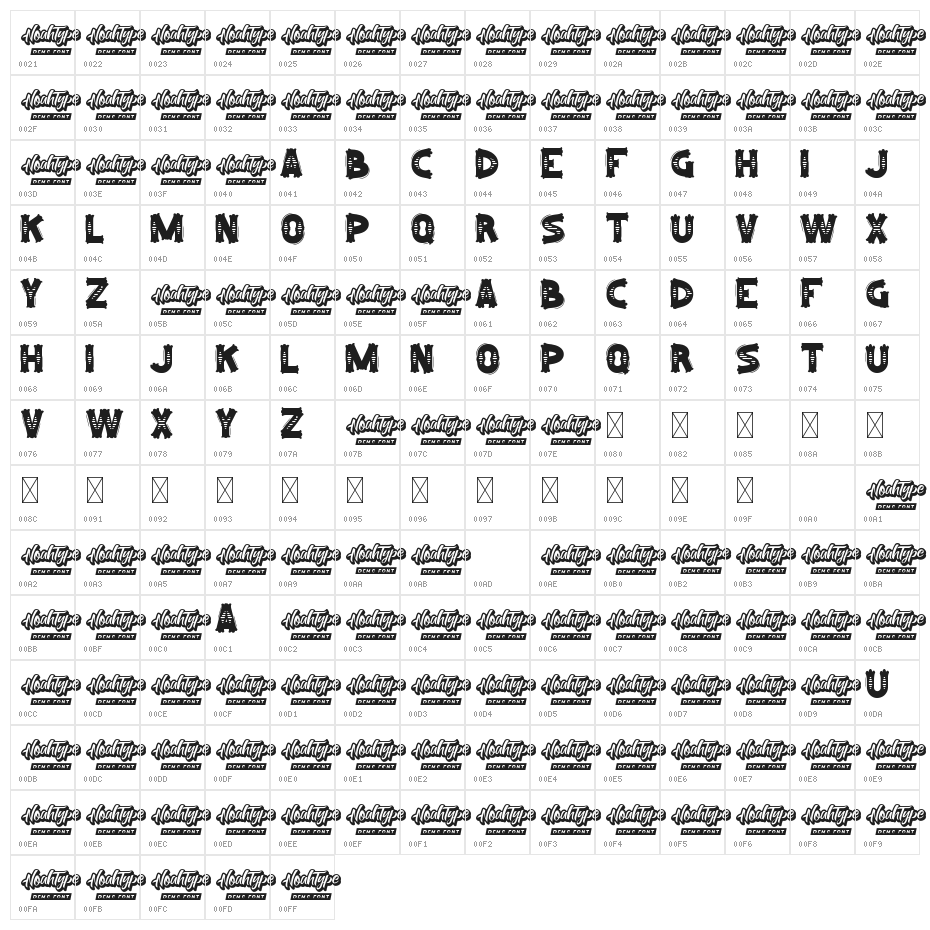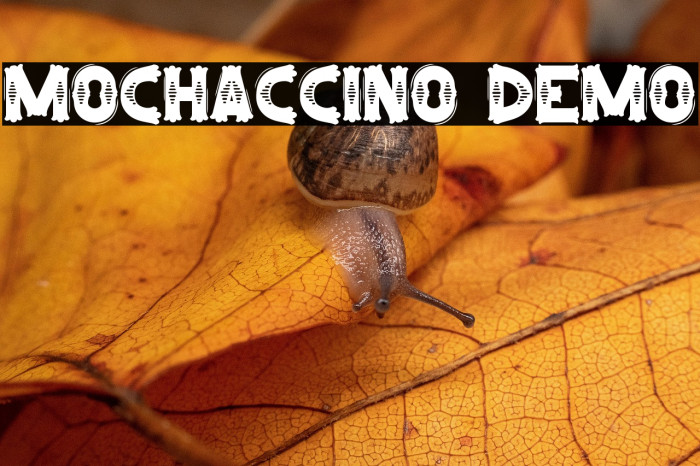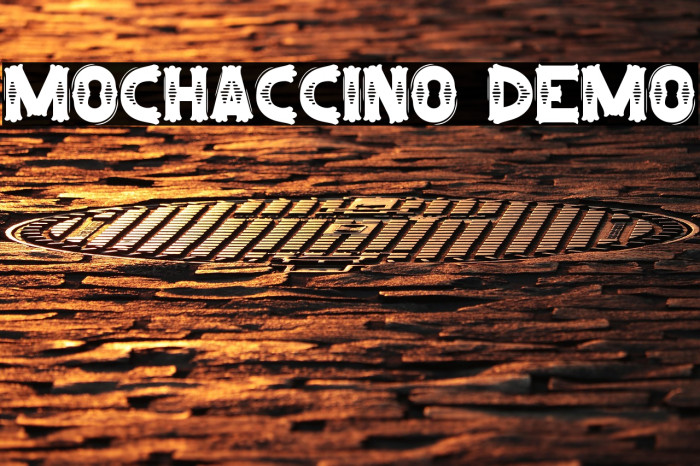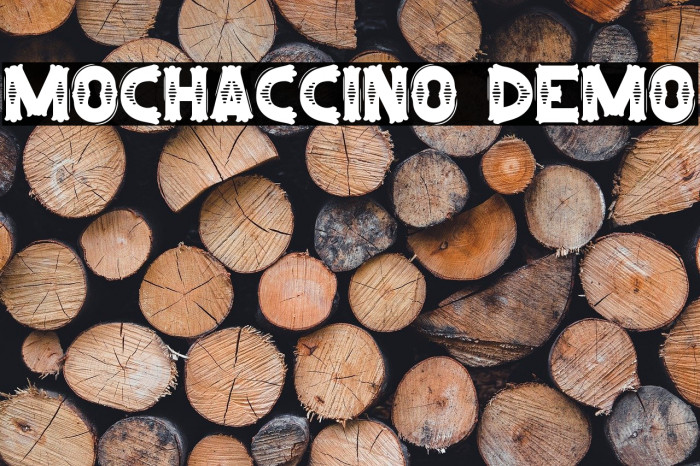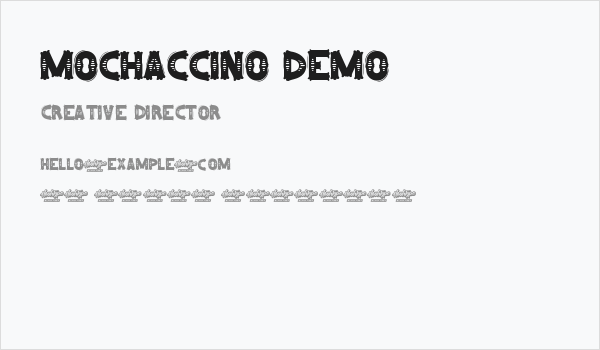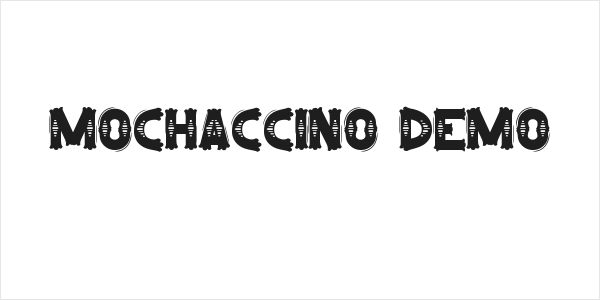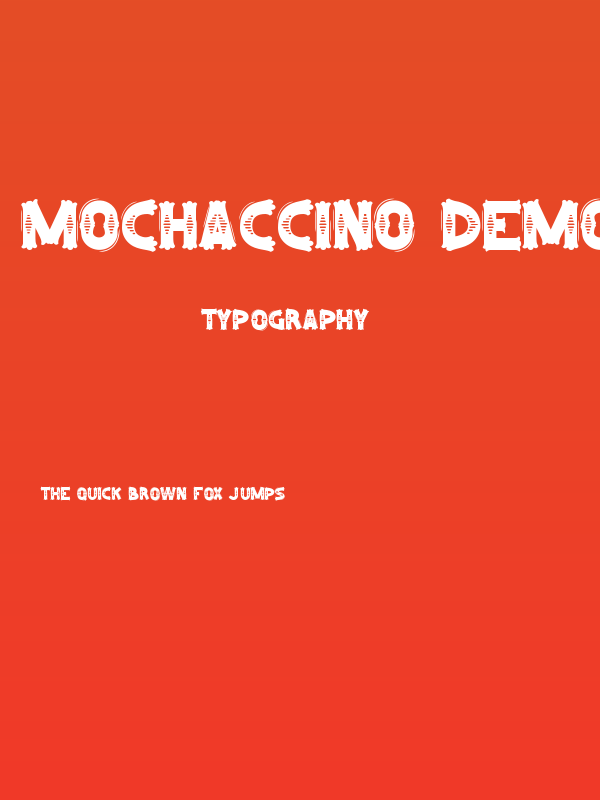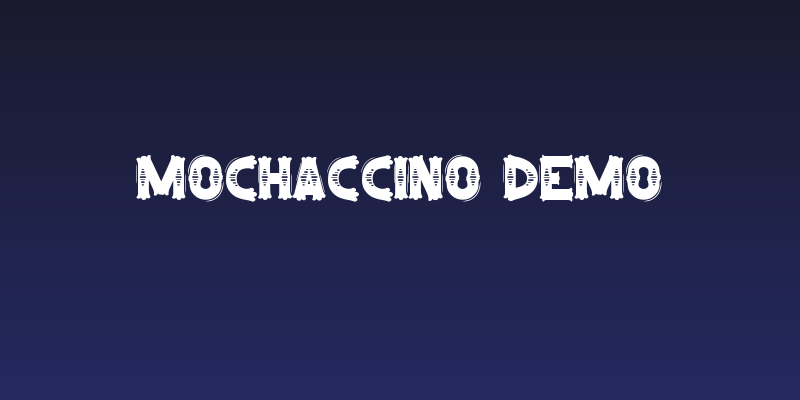
Mochaccino Demo Font
Mochaccino Demo Description
This font features a bold and playful design with a unique, decorative style. The characters are heavily stylized with thick strokes and intricate detailing, giving them a dynamic and energetic appearance. The font's boldness is accentuated by its high contrast between thick and thin lines, creating a striking visual impact. Each letter is crafted with a sense of movement and flair, making it ideal for eye-catching designs. The overall style is modern with a touch of whimsy, perfect for projects that require a fun and engaging typeface.
| Overall Style | Modern, Playful |
| Proposed Projects | Ideal for posters, branding, event invitations, and any project needing a bold, playful touch. |